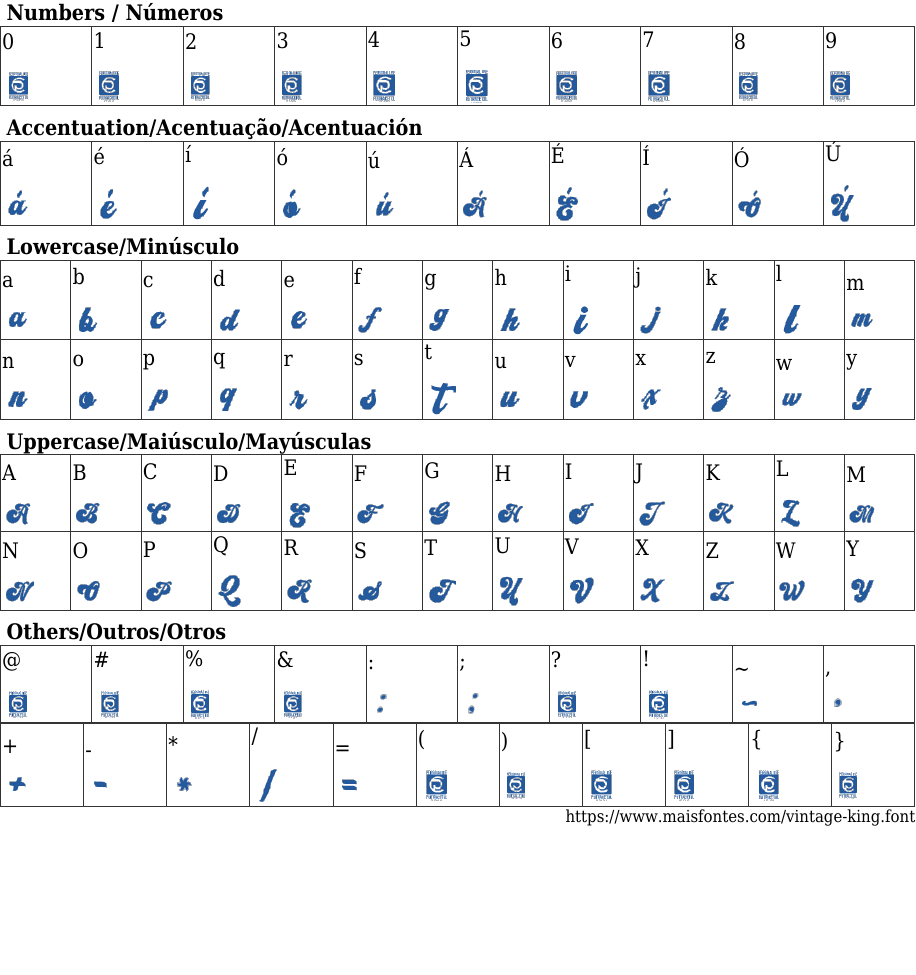
Vintage King Font Generator . vintage king à € by putracetol studio. 21,892 downloads (15 yesterday) free for. vintage king is licensed under the 1001fonts free for personal use license (ffp) — vintage king à € by stringlabs creative studio. — vintage king is a retro bold script style font, inspired from retro typography and lettering in the 70's and 80's combine with bold typography. — free download of vintage king font. download vintage king font for free! — free download of vintage king font. 1,158,768 downloads (680 yesterday) free for personal use.
Vintage King font by PutraCetol Studio FontRiver Vintage King Font Generator — vintage king is a retro bold script style font, inspired from retro typography and lettering in the 70's and 80's combine with bold typography. vintage king is licensed under the 1001fonts free for personal use license (ffp) download vintage king font for free! — free download of vintage king font. 1,158,768 downloads (680 yesterday) free. Vintage King Font Generator.